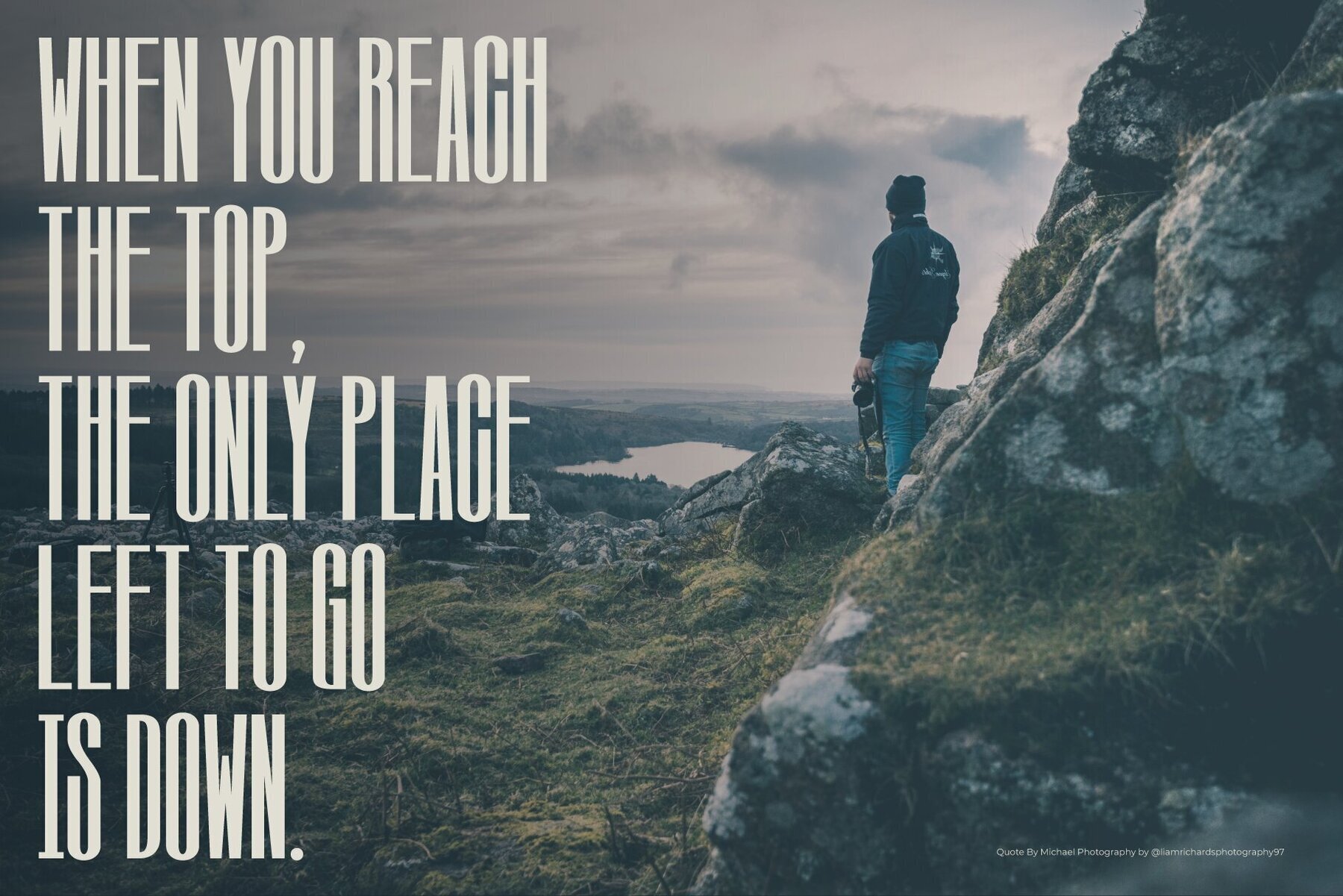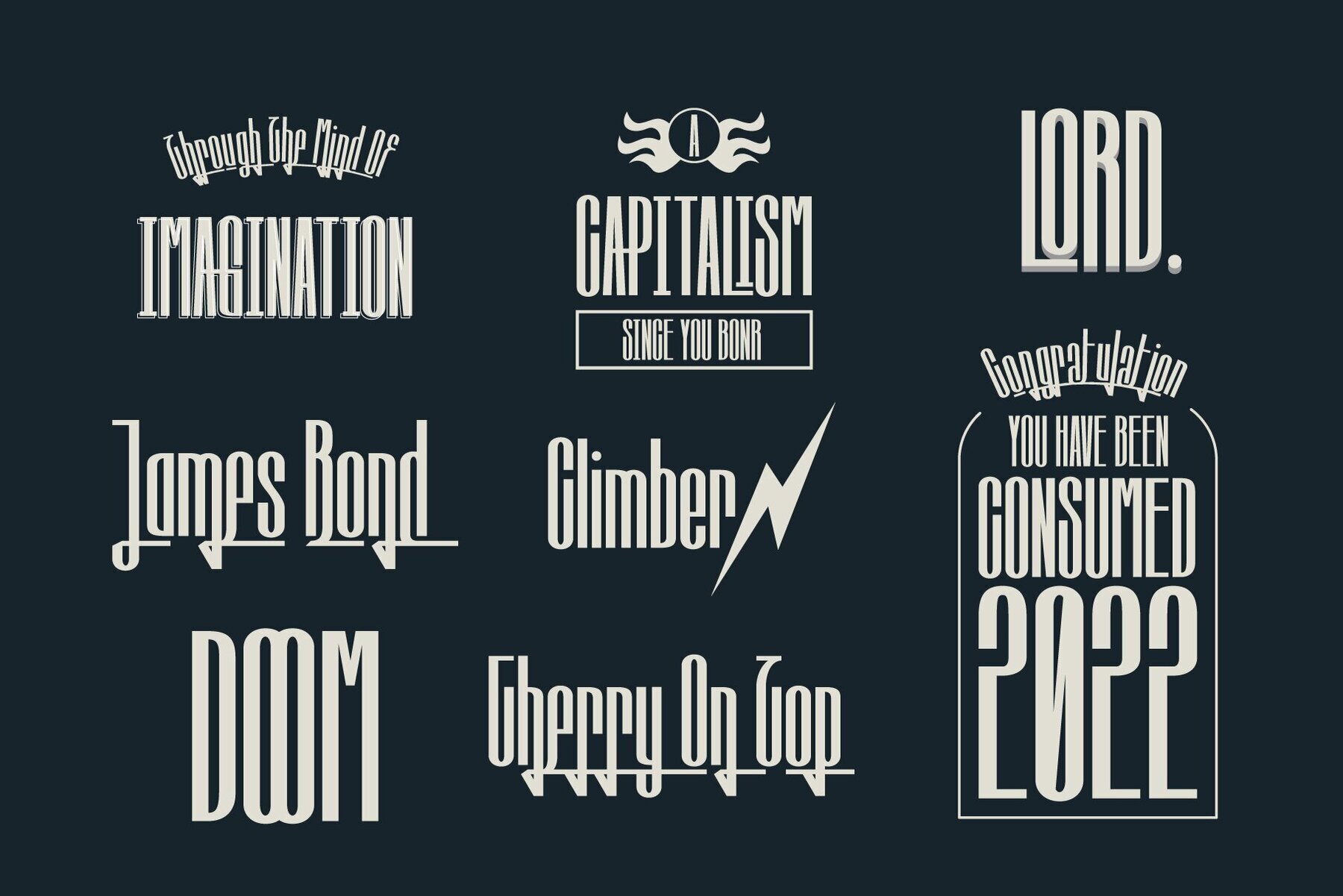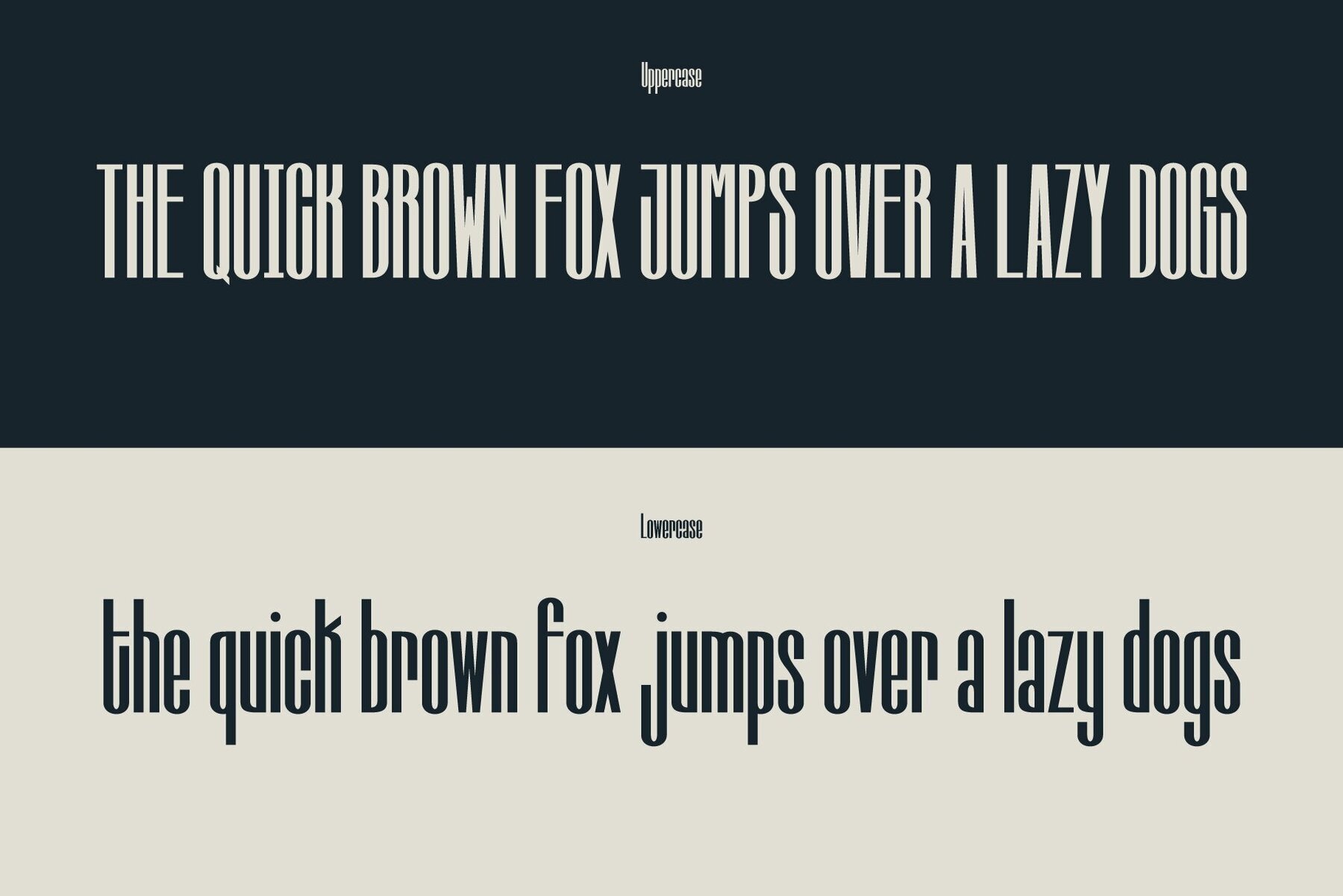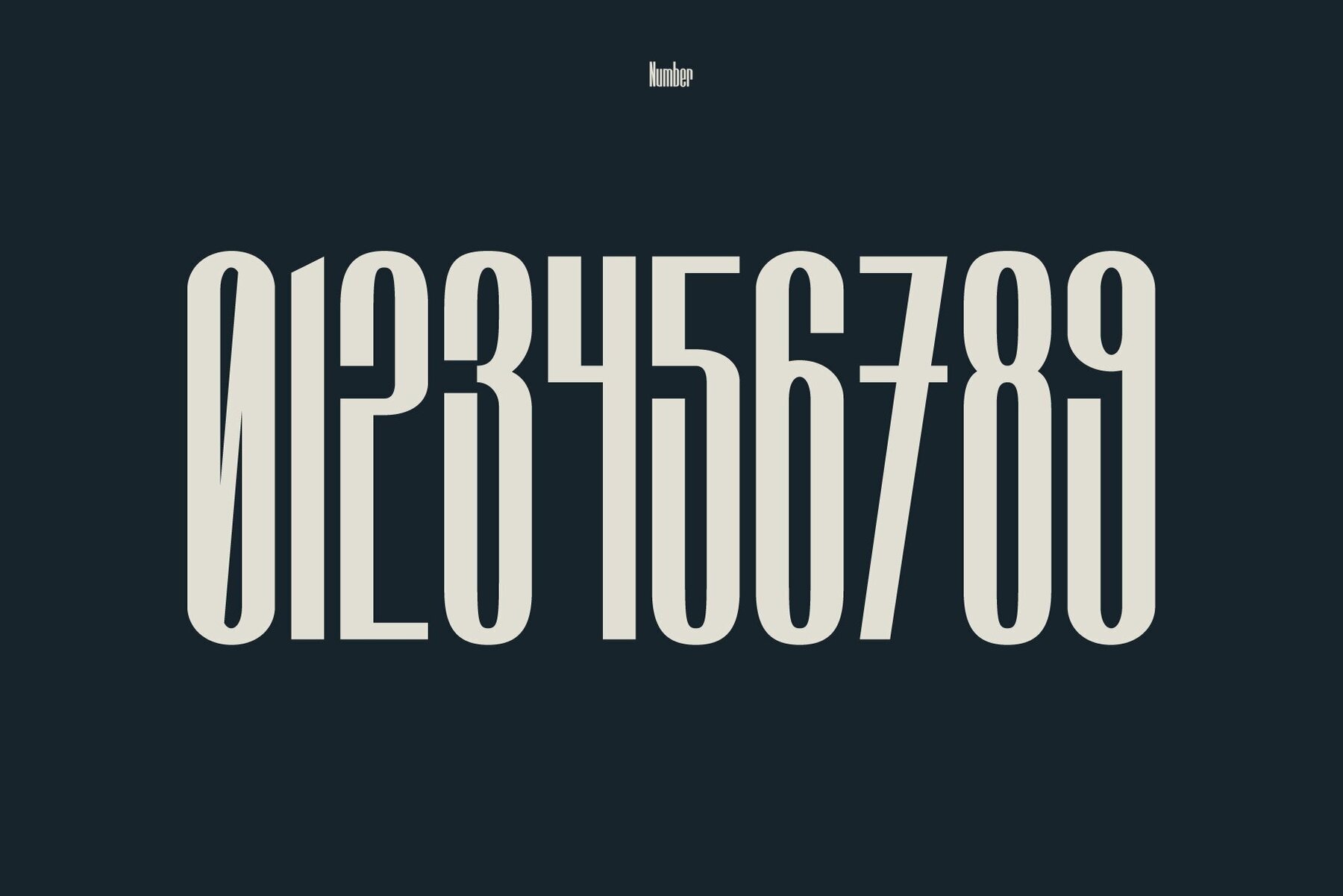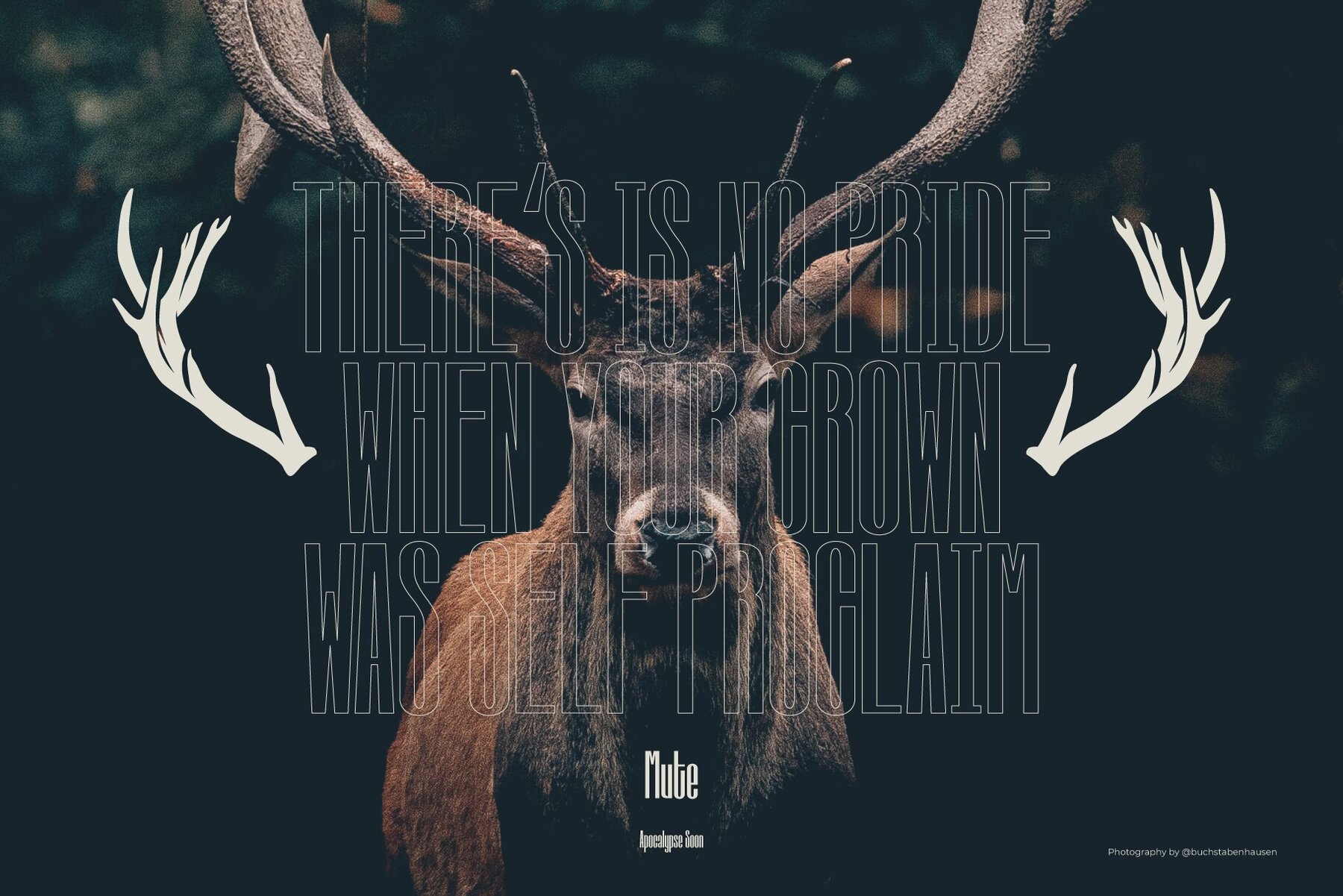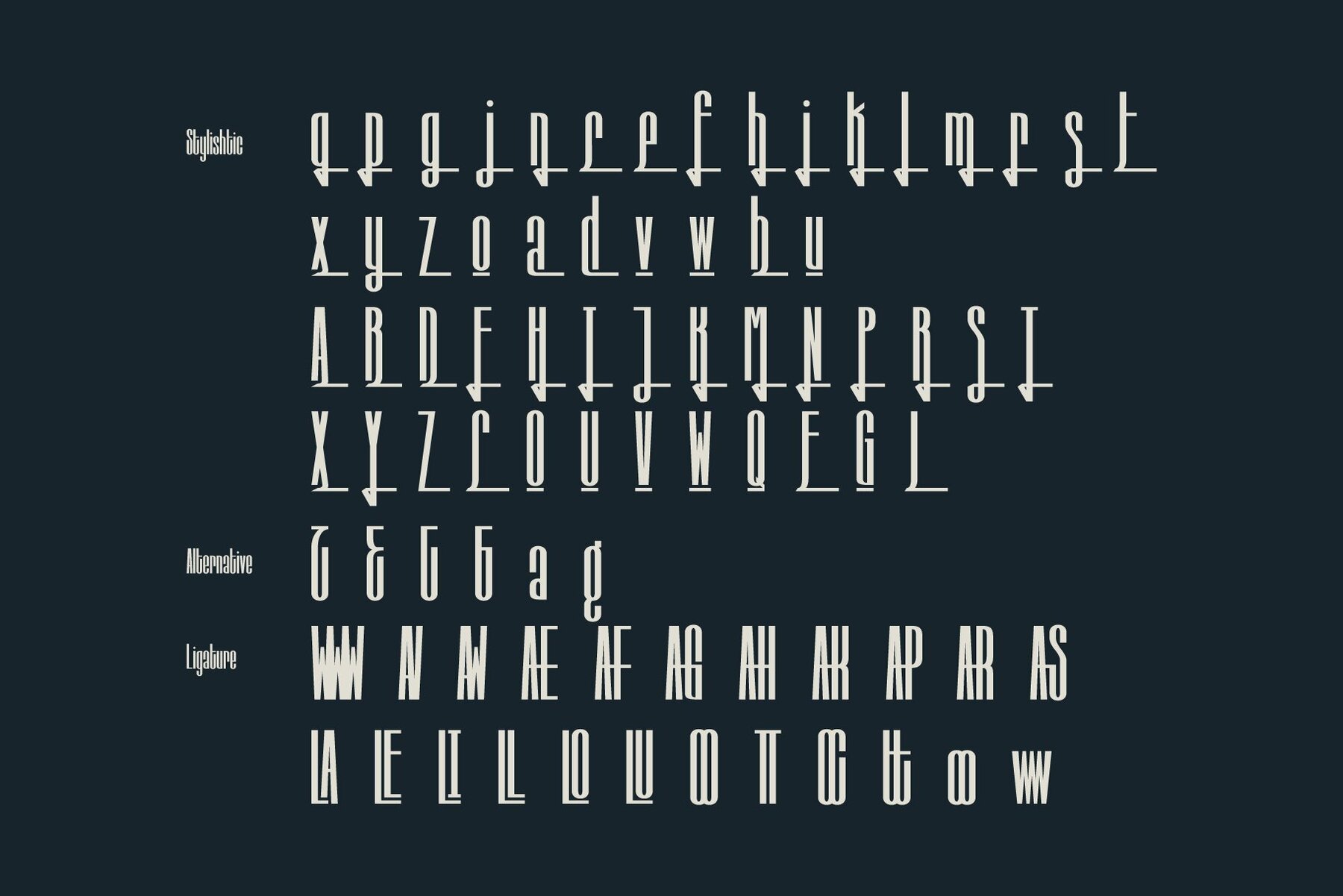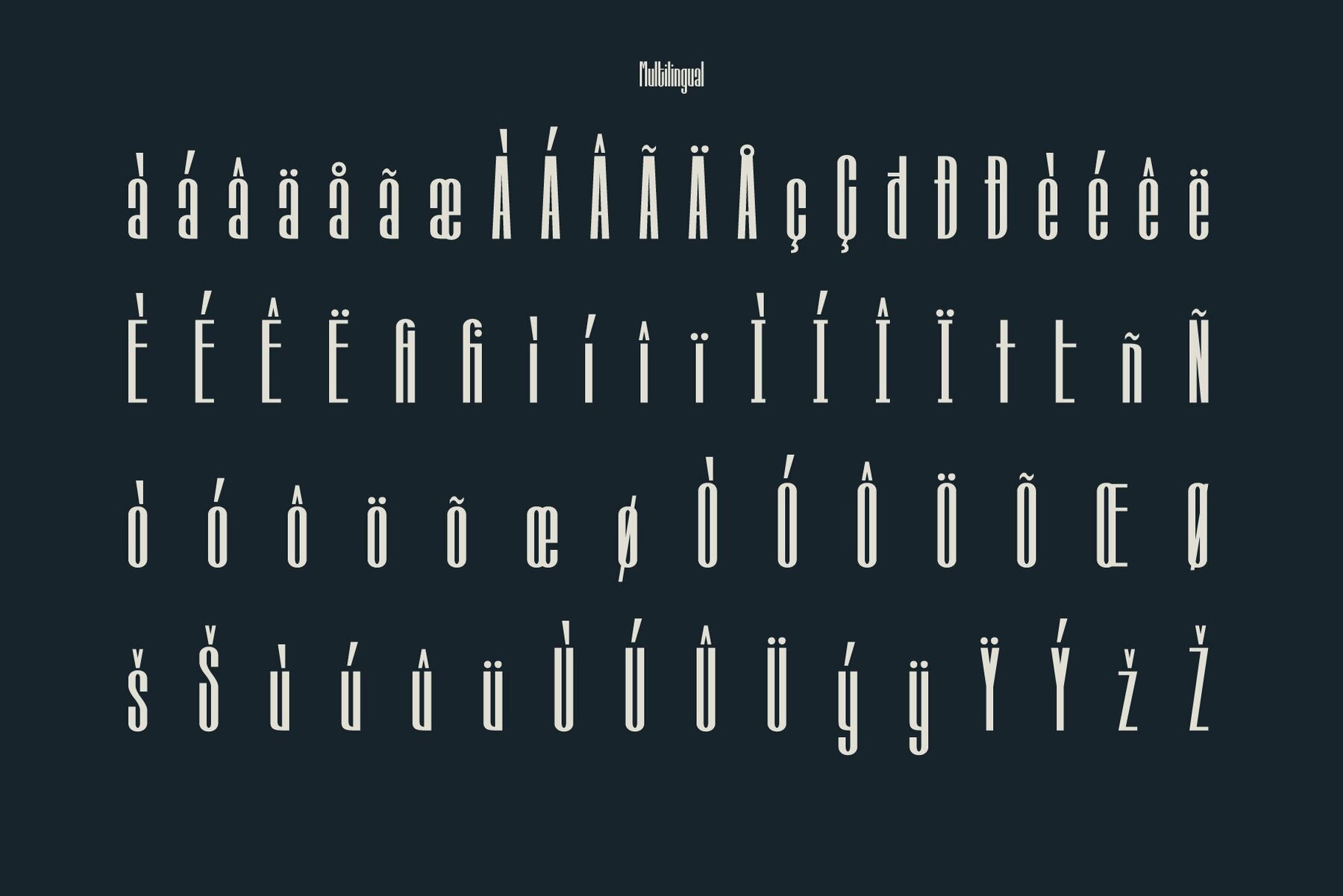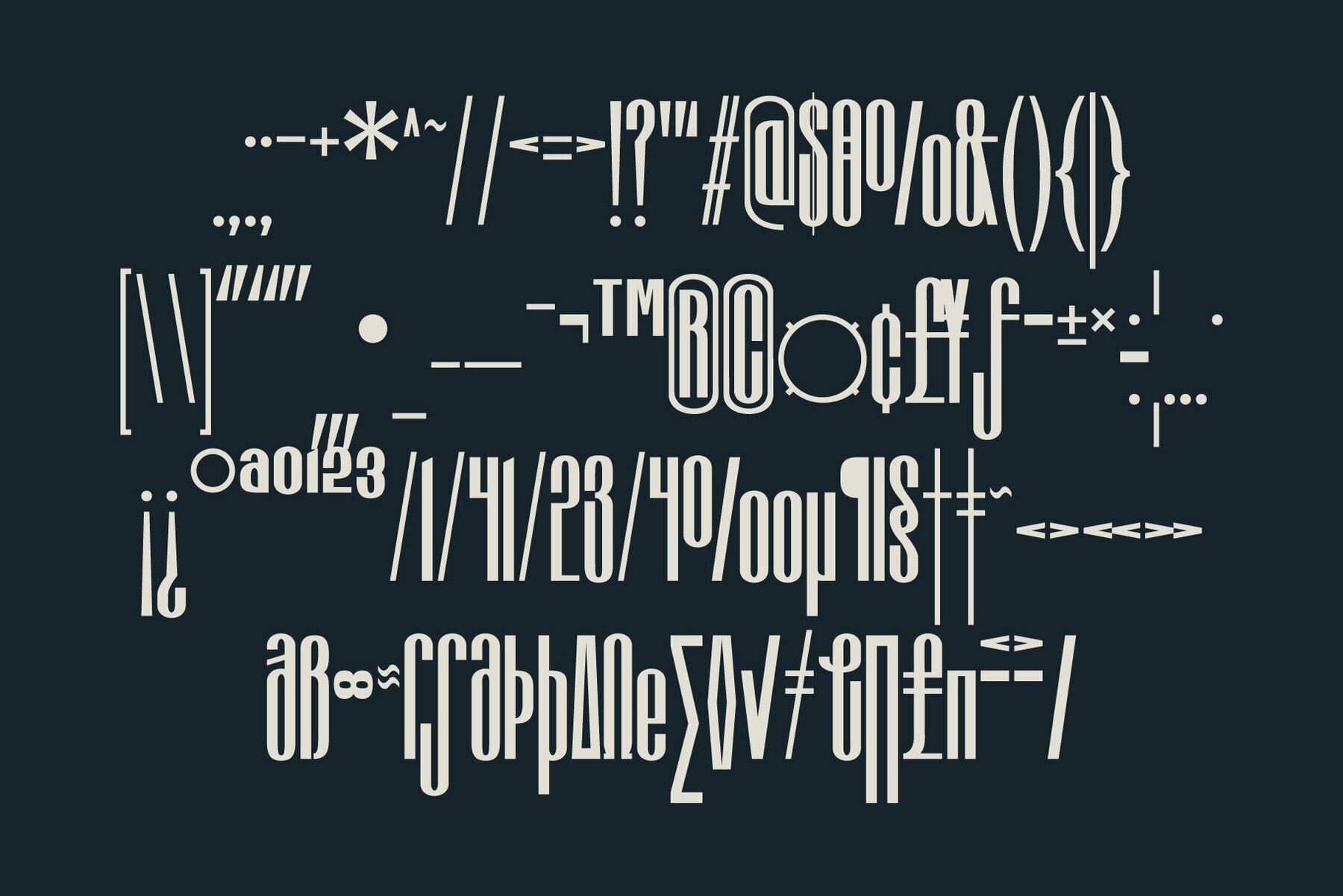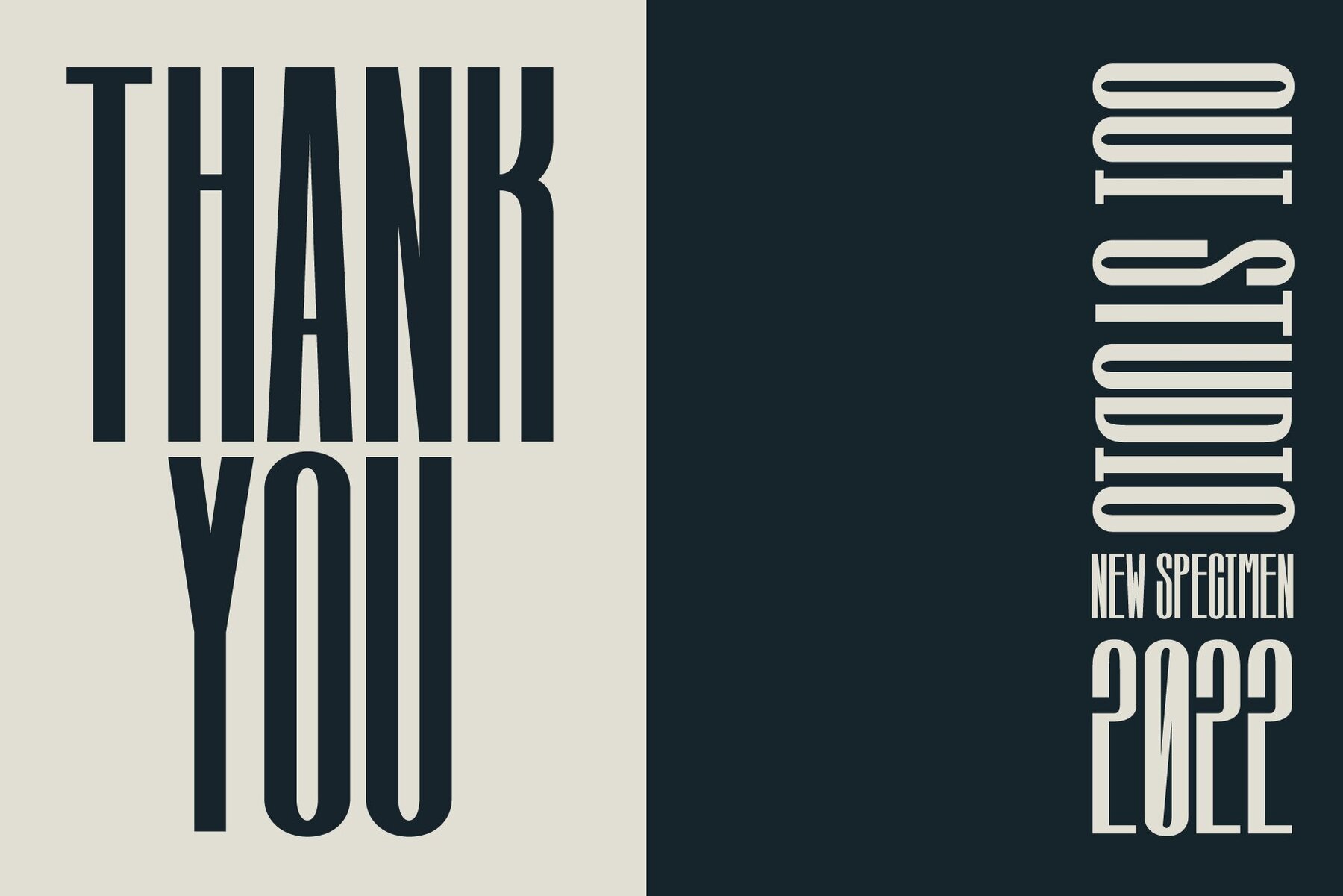
Chuko Font
Chuko Regular
Immerse yourself in the vibrant nostalgia of the 1980s with Chuko, a condensed font designed for contemporary relevance. This unique typeface captures the essence of retro aesthetics, making it ideal for a wide range of creative applications, from branding and logos to posters and t-shirts. Chuko offers designers a creative tool to bring their visions to life, enriching projects with a touch of vintage flair.Chuko: Retro Condensed Font Inspired by the 80s